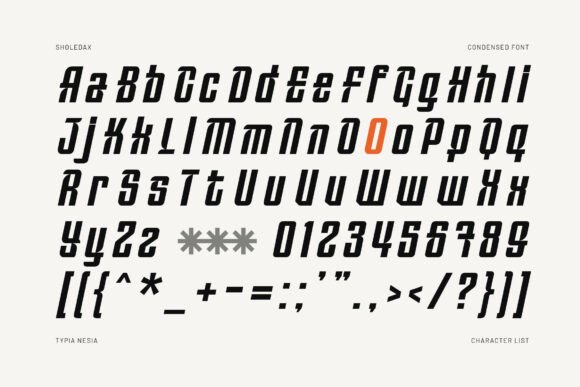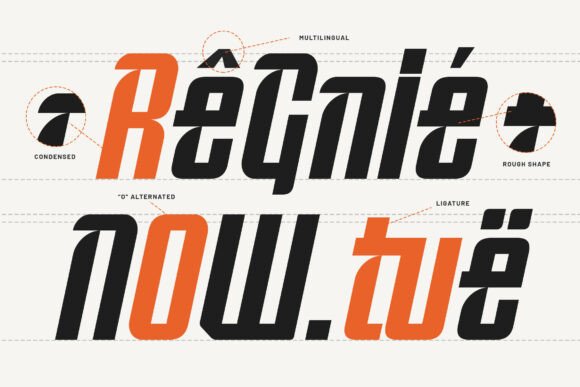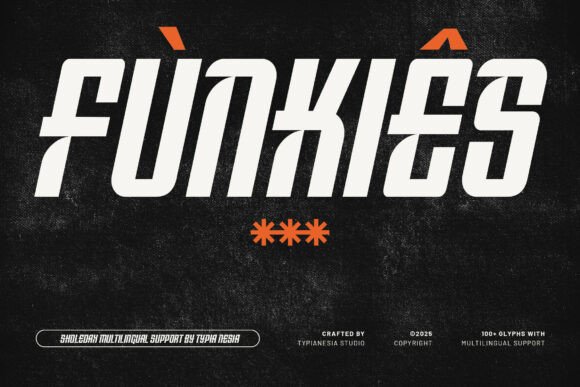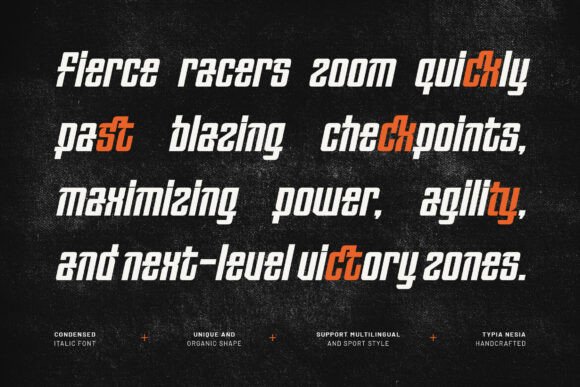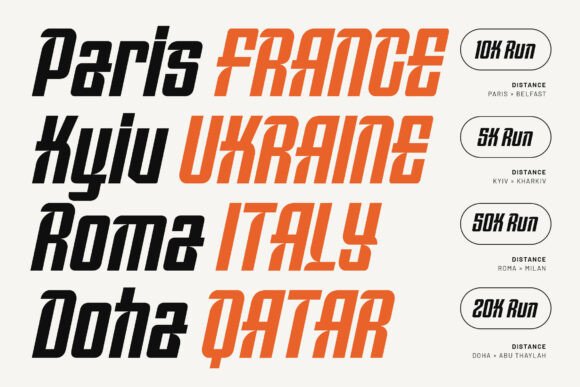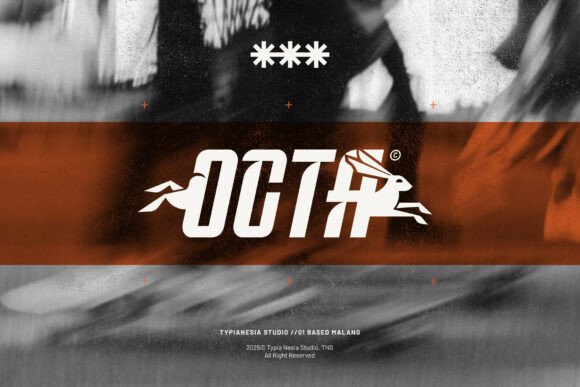
Introduction to Sholedax Font Font
Fonts play a crucial role in design, and the Sholedax Font font is a typeface that brings both character and versatility to any project. Whether you’re working on a branding project, a website, or a print design, the Sholedax Font font offers a unique style that can elevate your work.
Sholedax is a Modern Condensed Italic Racing Font designed with a bold, tall, and aggressive structure inspired by high-speed racing, sports competition, and futuristic technology.
Itβs perfect for racing logos, sport branding, gaming titles, tech-inspired designs, futuristic posters, web headers, logotypes, space-themed visuals, and projects that require a touch of modern with futuristic design The character makes it highly readable while maintaining an energetic and competitive look, ideal for designer projects that demand speed, strength, and visual impact.
Key Features of Sholedax Font Font
Why Choose Sholedax Font Font?
The Sholedax Font font is more than just a typeface β it’s a design tool that helps you communicate your message with style and clarity. Its unique character set and versatile design make it suitable for a wide range of applications, from elegant invitations to bold headlines.
With its carefully crafted letterforms and balanced proportions, the Sholedax Font font ensures readability and visual appeal across all mediums.
What makes Sholedax Font font special?
The Sholedax Font font stands out with its unique design, exceptional readability, and versatility across various design applications.